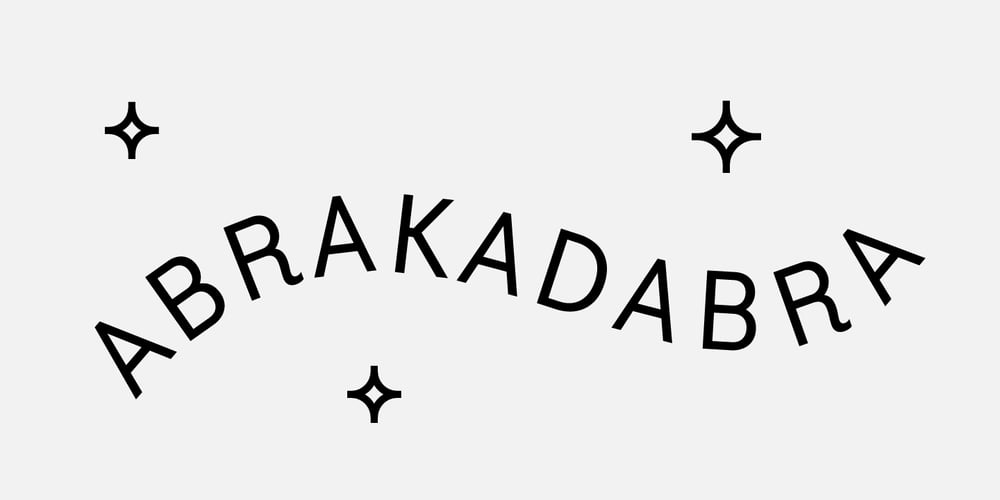
Abrakadabra Font Family was designed by Tolya Doodko and published by Tolya Doodko. Abrakadabra contains 1 styles and family package options. Abakadabra is a headline typeface inspired by sans-serifs of the first half of the twentieth century, as well as by the tricks of fakirs, illusionists and charmers. The gently playful manner of the font can be exaggerated to a more pretentious and grimacing one, or can alternatively be calmed to a neutral appearance. Abrakadabra supports most European languages and has thematic emoji symbols. The text can be customized by using stylistic sets or the Swashes and the Stylistic Alternates buttons in the OpenType panel.